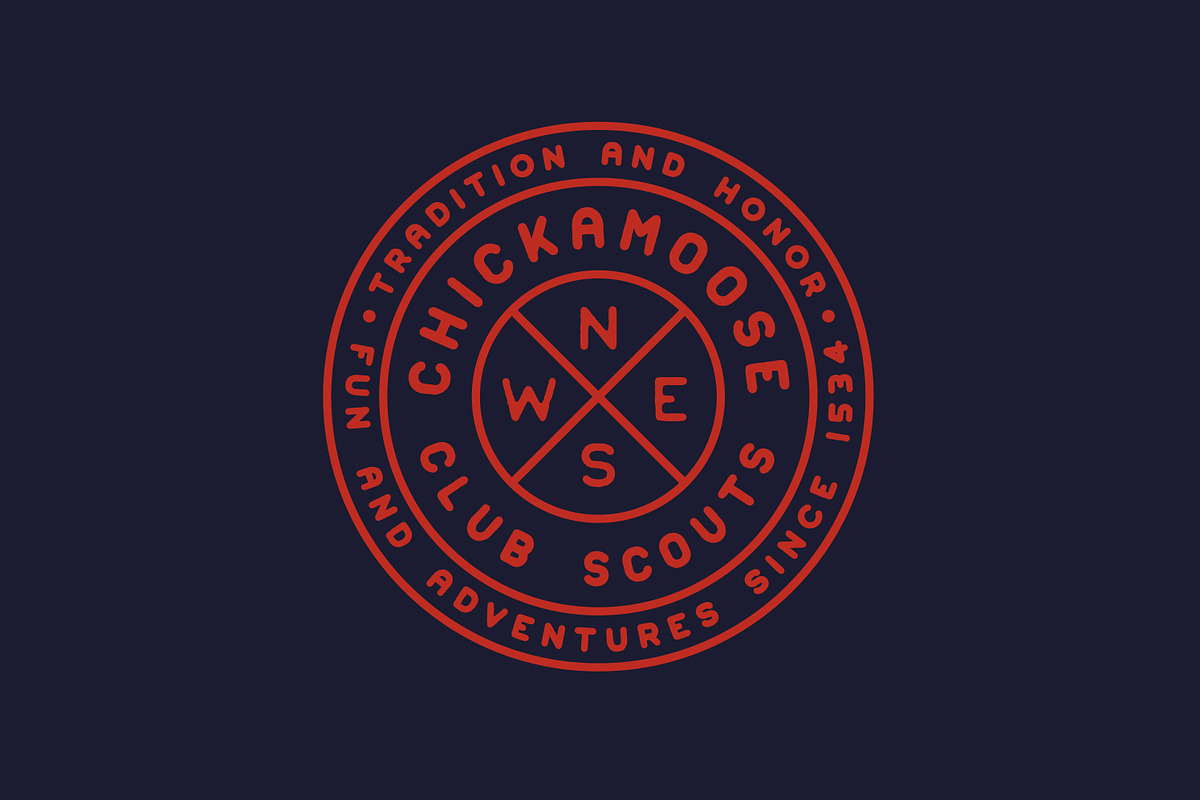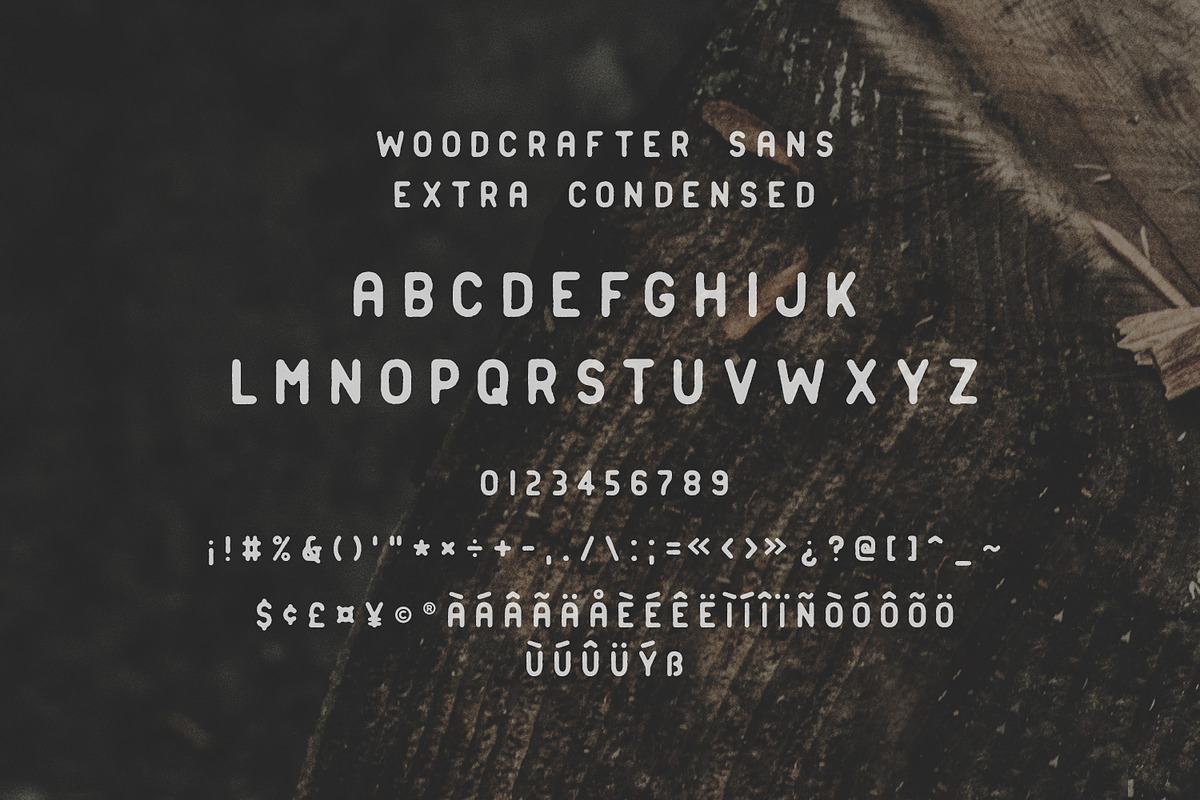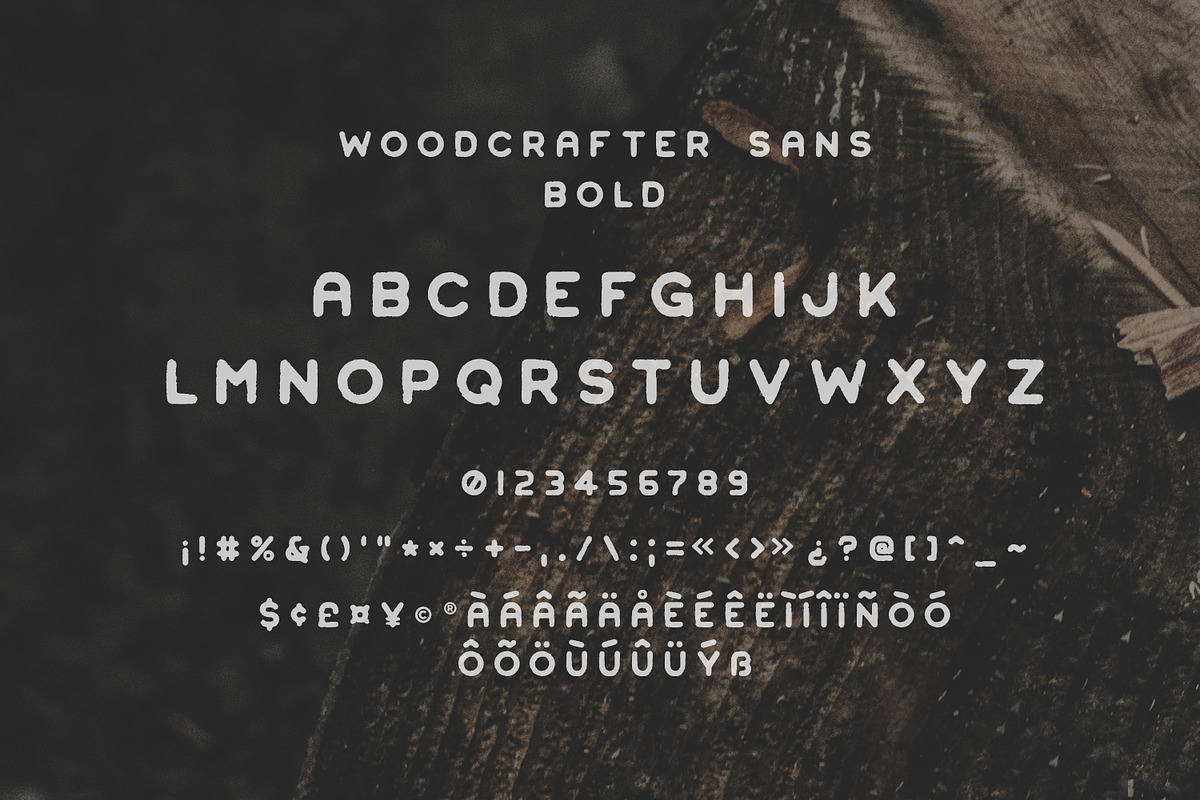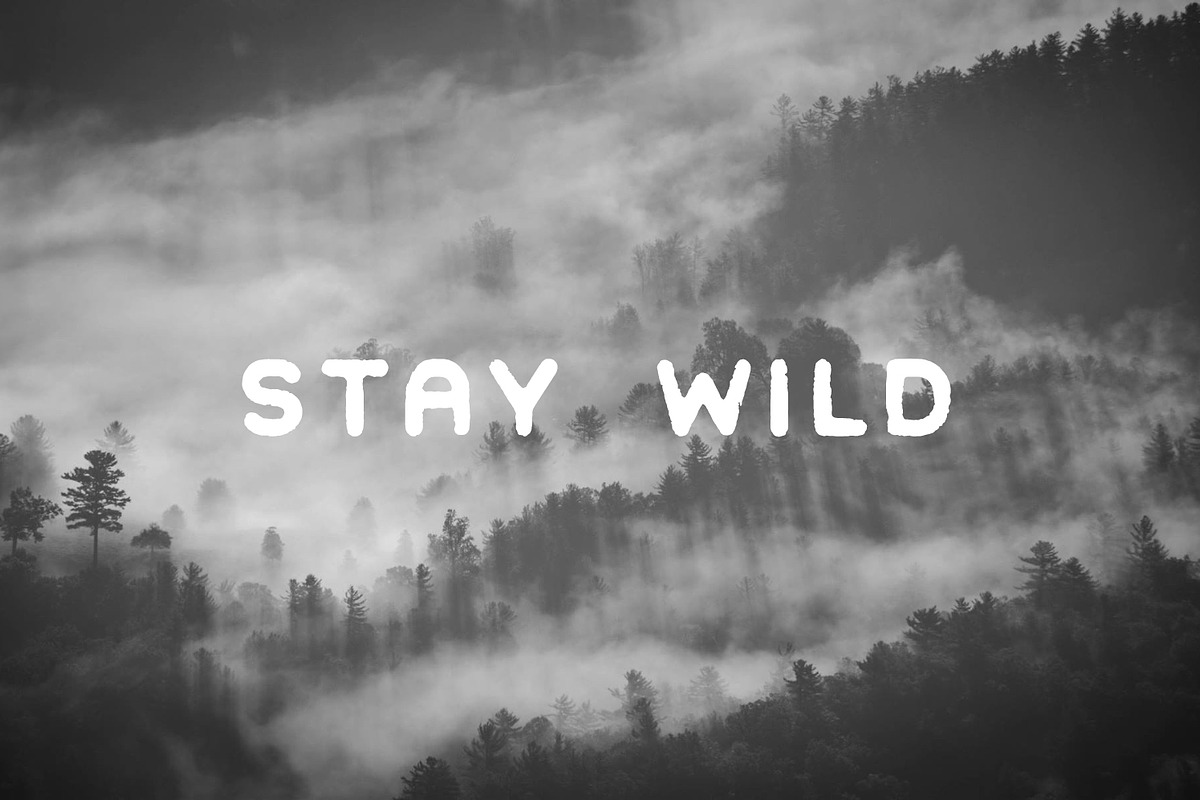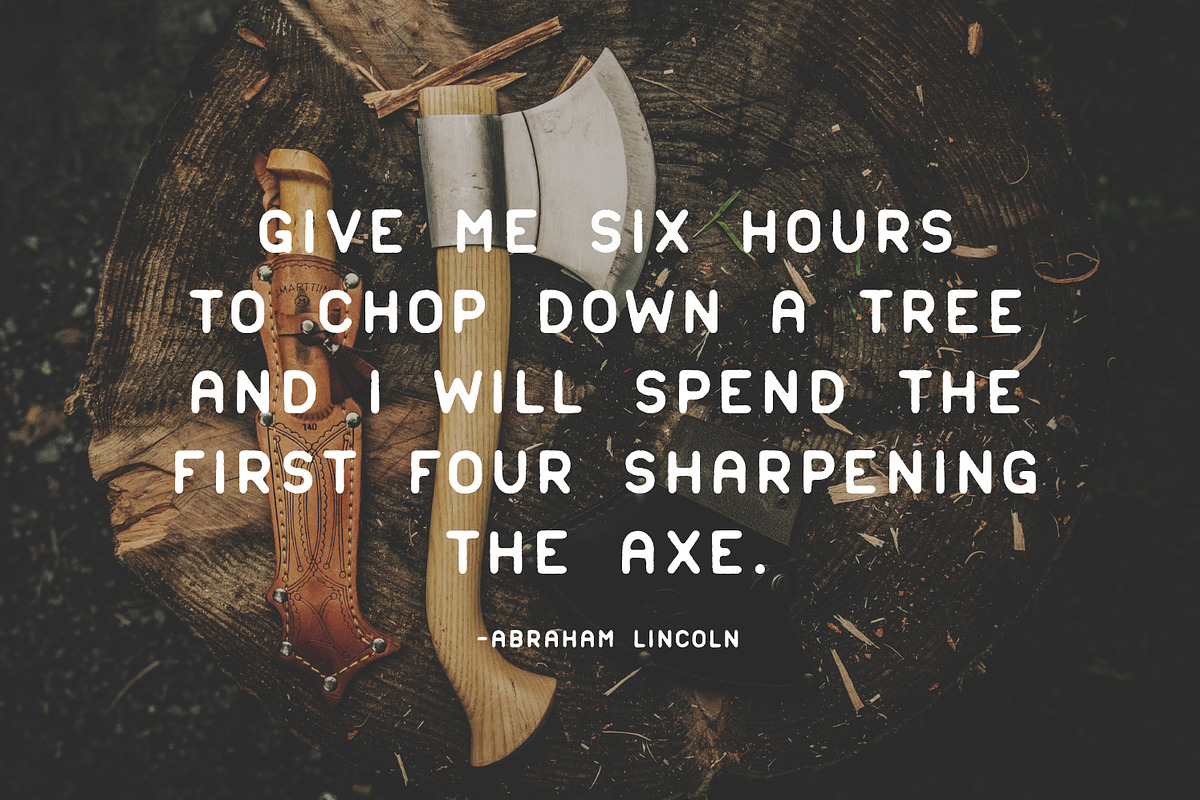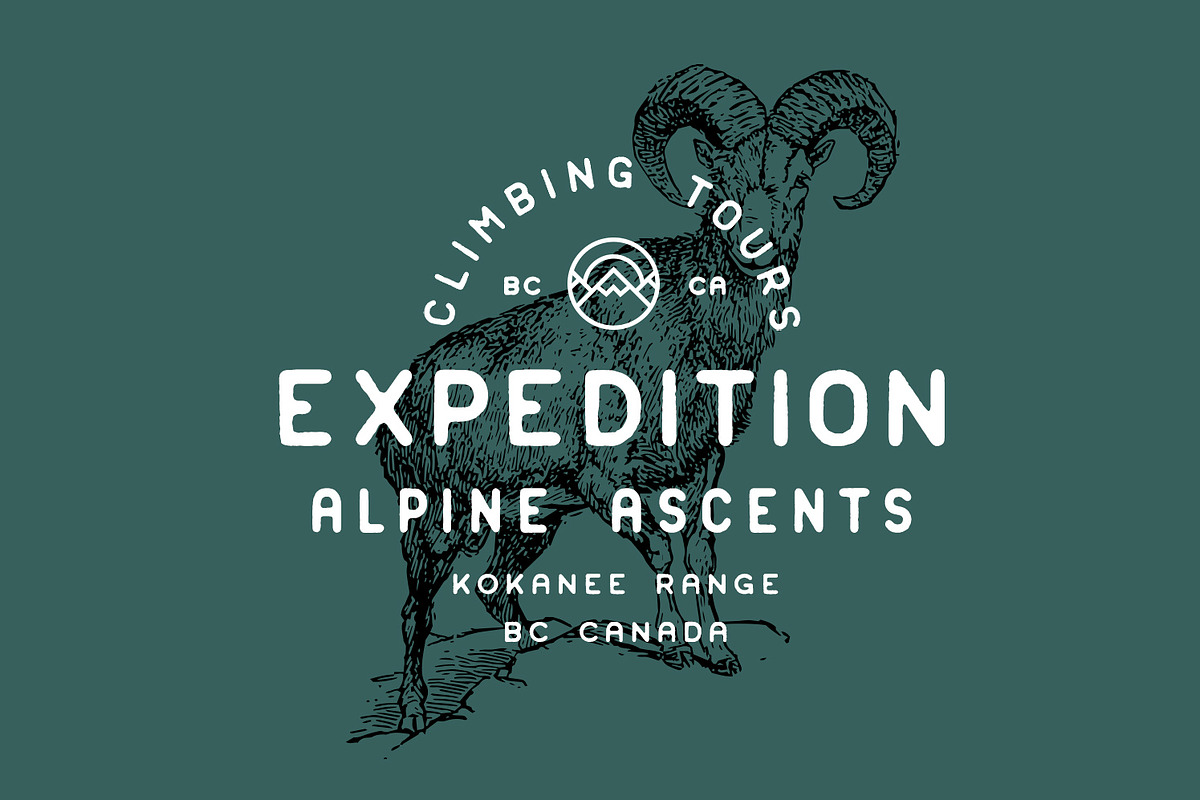
Woodcrafter Sans - 4 Font Family
Woodcrafter Sans - 4 Font Family by Greg Nicholls is a font selected for branding, posters, packaging, typography.
- Rounded edges and imperfections were added to the characters to give that old school printing vibe.
Why Woodcrafter Sans - 4 Font Family is worth a look
Woodcrafter Sans - 4 Font Family by Greg Nicholls fits naturally into Branding, posters, packaging, typography.